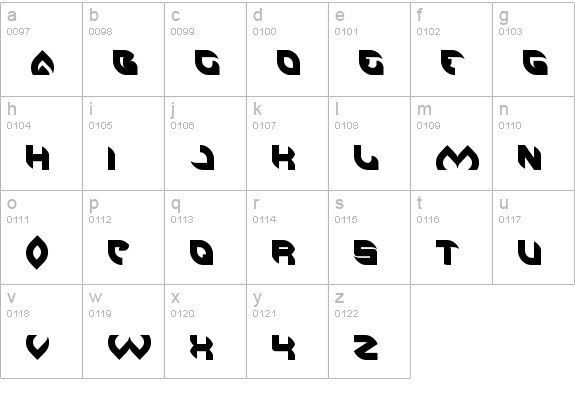
AERO GLASS Font Details
Introducing AERO GLASS font, a stunning display typeface that will take your designs to new heights! With its sleek and modern design, this font is perfect for creating eye-catching headlines, logos, posters, and more. AERO GLASS font captures the essence of elegance and sophistication, making it the ideal choice for any project that requires a touch of refinement. Its unique and intricate letterforms will captivate your audience and leave a lasting impression. But what sets AERO GLASS font apart is not only its exceptional design, but also its affordability. Yes, you read that right - this extraordinary font is absolutely free! You can easily download it at FontsMarket.com, where you'll find a wide range of high-quality fonts for all your creative needs. Whether you're a graphic designer, a branding specialist, or simply someone looking to add a touch of style to your personal projects, AERO GLASS font is the perfect choice. Its versatility allows it to shine in a variety of contexts, from modern and minimalist designs to more elaborate and decorative compositions. So why wait? Embrace the beauty and elegance of AERO GLASS font today and elevate your designs to new levels of visual appeal. Download it for free at FontsMarket.com and unlock a world of endless creative possibilities.